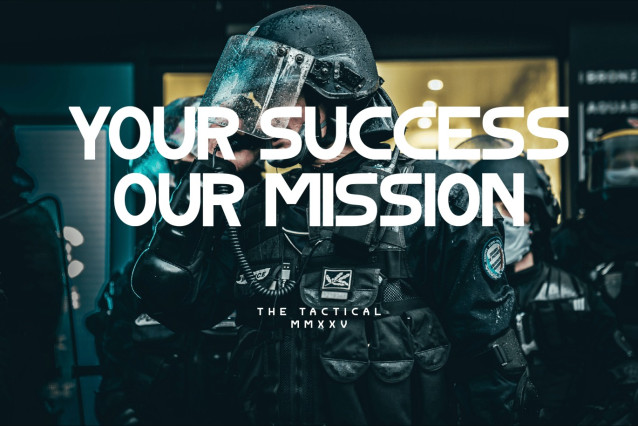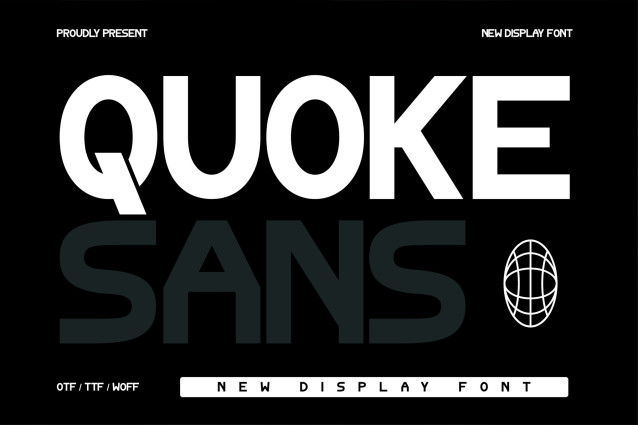
Quoke Font
Quoke Font is a sleek and modern sans-serif font that exudes a clean, minimalist aesthetic. Its simple, yet impactful design makes it perfect for both digital and print media. With geometric letterforms and well-balanced proportions, Quoke is ideal for projects that require clarity and sophistication. Whether used for headlines, body text, or branding, this font brings a contemporary feel, making it versatile across various design contexts.